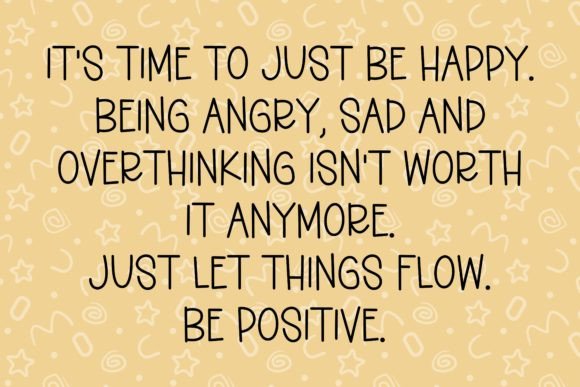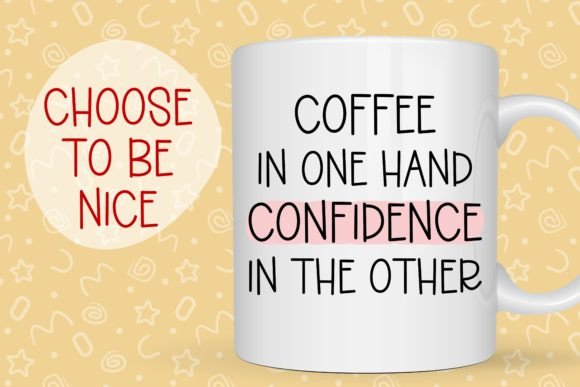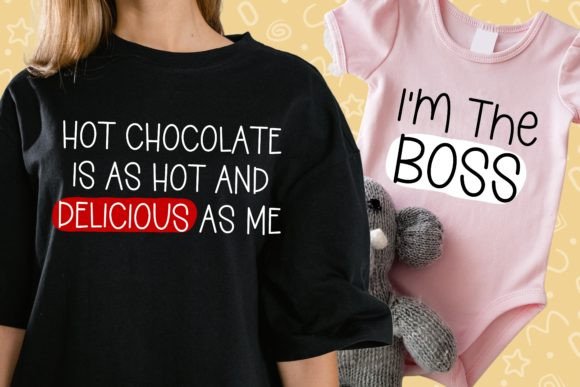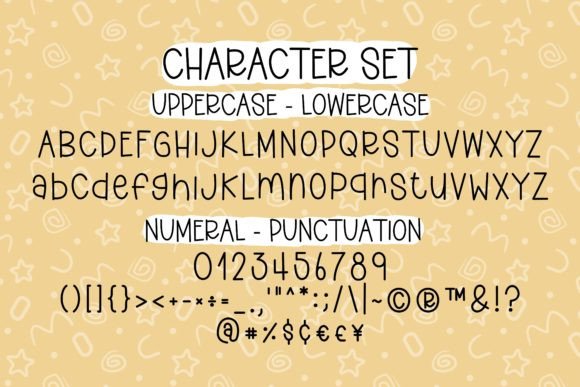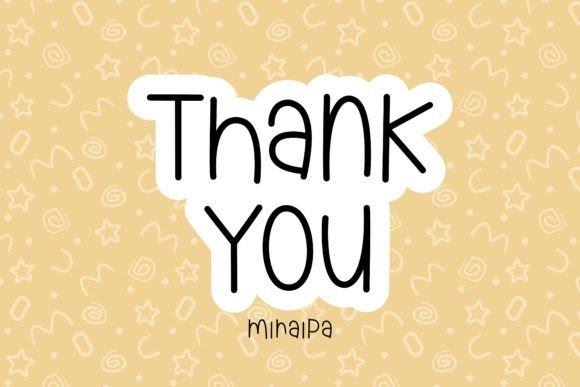
Introduction to Mister Overthink Font
Mister Overthink is designed in a cute and playful sans serif font style.
It’s charming, whimsical, and a bit quirky It would be awesome to your fun projects or diary planner.
Key Features of Mister Overthink Font
Why Choose Mister Overthink Font?
Mister Overthink Font offers exceptional quality and versatility, making it a valuable addition to your design toolkit. Whether you’re creating for personal projects or commercial use, Mister Overthink Font delivers professional results.